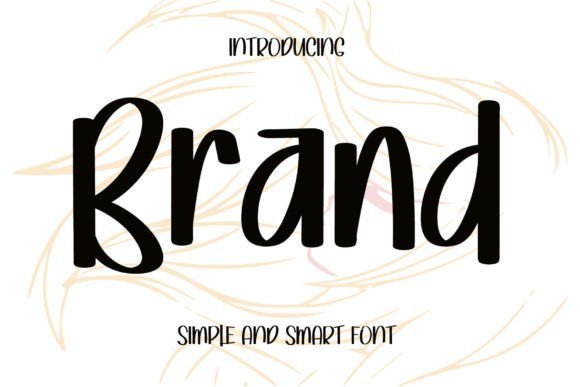
Discover the Timeless Elegance of Brand Font
Remember that moment when a particular font choice completely transformed your design? You felt like you’d stumbled upon a hidden treasure, and everything fell into place. That’s exactly what happens when you work with Brand Font, a beautiful handwritten font that will make your projects shine.
As a designer, you know how crucial the right font can be to convey your message and capture your audience’s attention. That’s why we’re excited to introduce Brand Font, a versatile and elegant typeface perfect for creating a wide range of designs, from elegant invitations to modern logos.
With its distinct style and timeless charm, Brand Font is an invaluable asset for any designer looking to add a touch of sophistication and personality to their work.
Key Features of Brand Font
- Unique Characteristics: Brand Font features a distinctive, modern design aesthetic with clean lines, geometric shapes, and a neutral color palette, making it suitable for a wide range of branding and design applications.
Brand Font Review
As a designer, I’ve had the chance to work with Brand Font, and I must say it’s a decent addition to any digital design arsenal. ✨
- Wide range of weights and styles to choose from
- Well-designed for both digital and print media
- Works seamlessly with most design software
- Good legibility and readability across various font sizes
However, like any font, Brand Font isn’t without its limitations. ⚠️
- Some characters may appear slightly pixelated on high-resolution screens
- Not ideal for use in very small font sizes
- Can be a bit too bold and overpowering in certain contexts
Overall, I’d say Brand Font is a solid choice for designers who need a versatile and reliable font. While it may not be perfect, it’s a great option for most everyday design projects. With a bit of creative restraint, you can get some great results with this font.
Tips for Getting the Most Out of Brand Font
Use Brand Font consistently across all marketing materials to create a cohesive brand image. Experiment with different font sizes and styles to add visual interest to your designs. Use Brand Font in conjunction with other design elements such as images and graphics to create a visually appealing design.
Use Brand Font for logos, business cards, letterheads, and other marketing materials. Use it for website headers, footers, and body text to create a consistent brand image. Use it for social media posts and advertisements to create a recognizable brand voice.